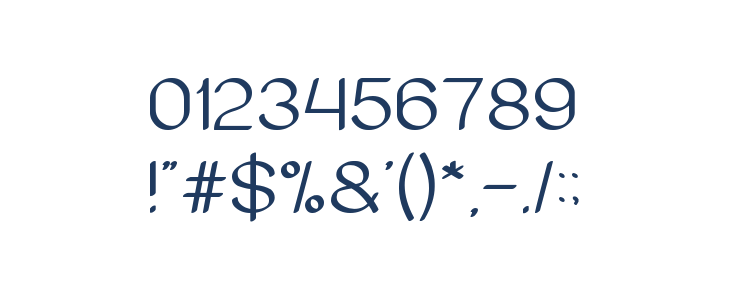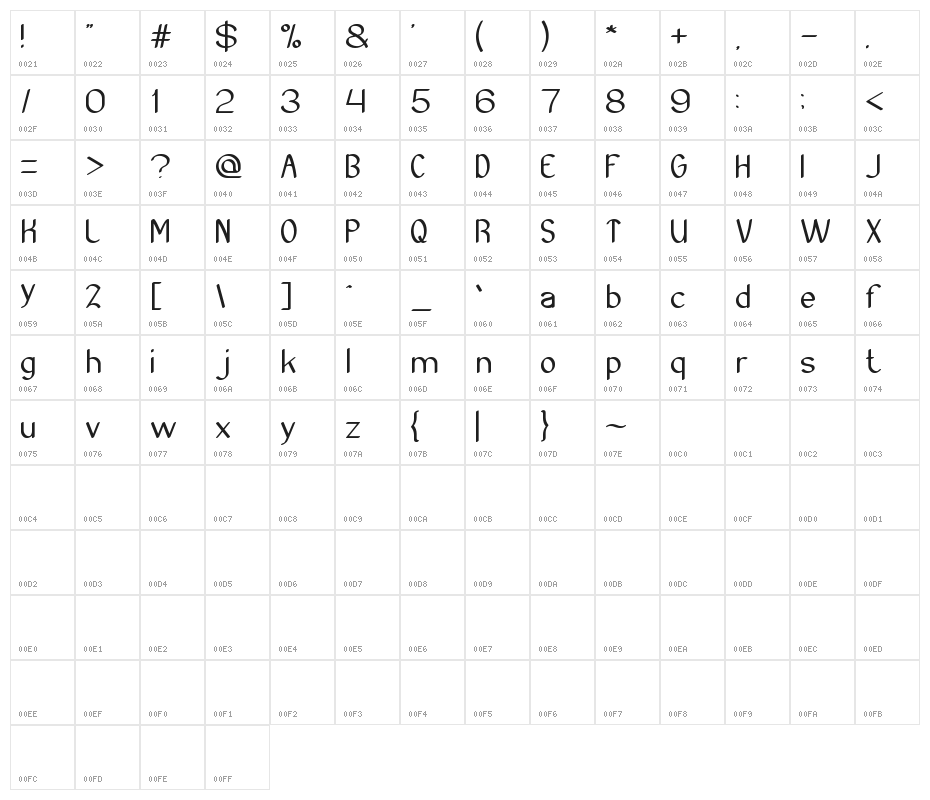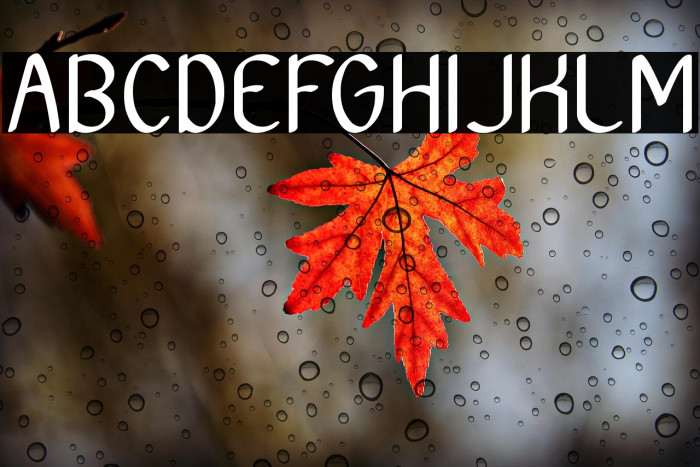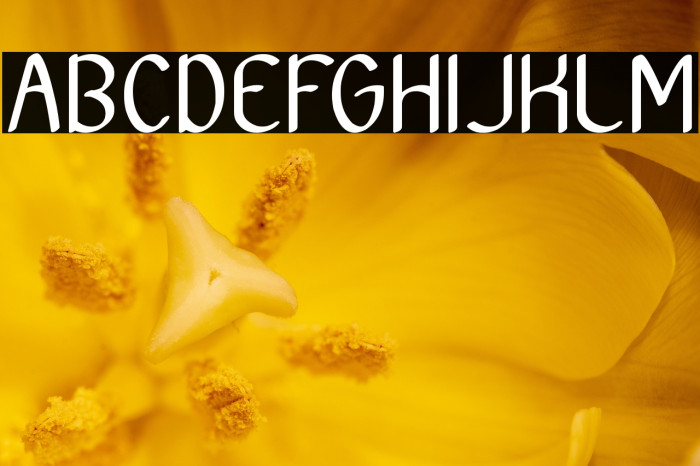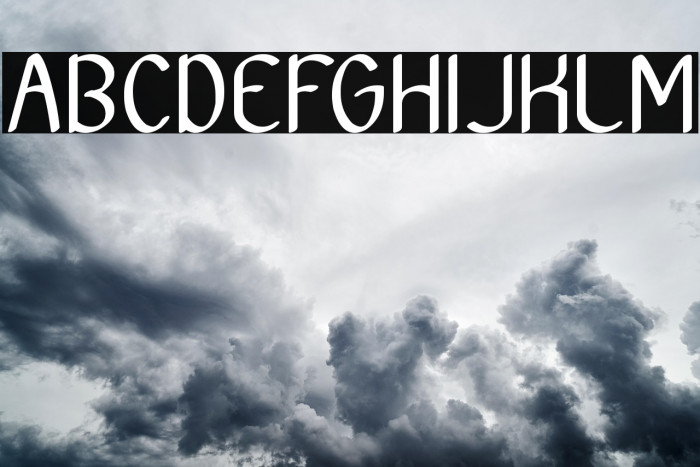
Archive Font
Archive Description
This font features a modern and playful design with rounded edges and a clean, sans-serif style. The uppercase letters are slightly elongated, giving them a unique and approachable appearance. The lowercase letters maintain a consistent height, contributing to a balanced and harmonious look. The numerals are clear and easy to read, with a uniform width that complements the overall design. Special characters are well-integrated, maintaining the font's cohesive style. The font's simplicity and readability make it versatile for various applications.
| Use Case | Headlines, Body text, Logos |
| Proposed Projects | Ideal for branding, advertising, children's books, and digital media projects. |